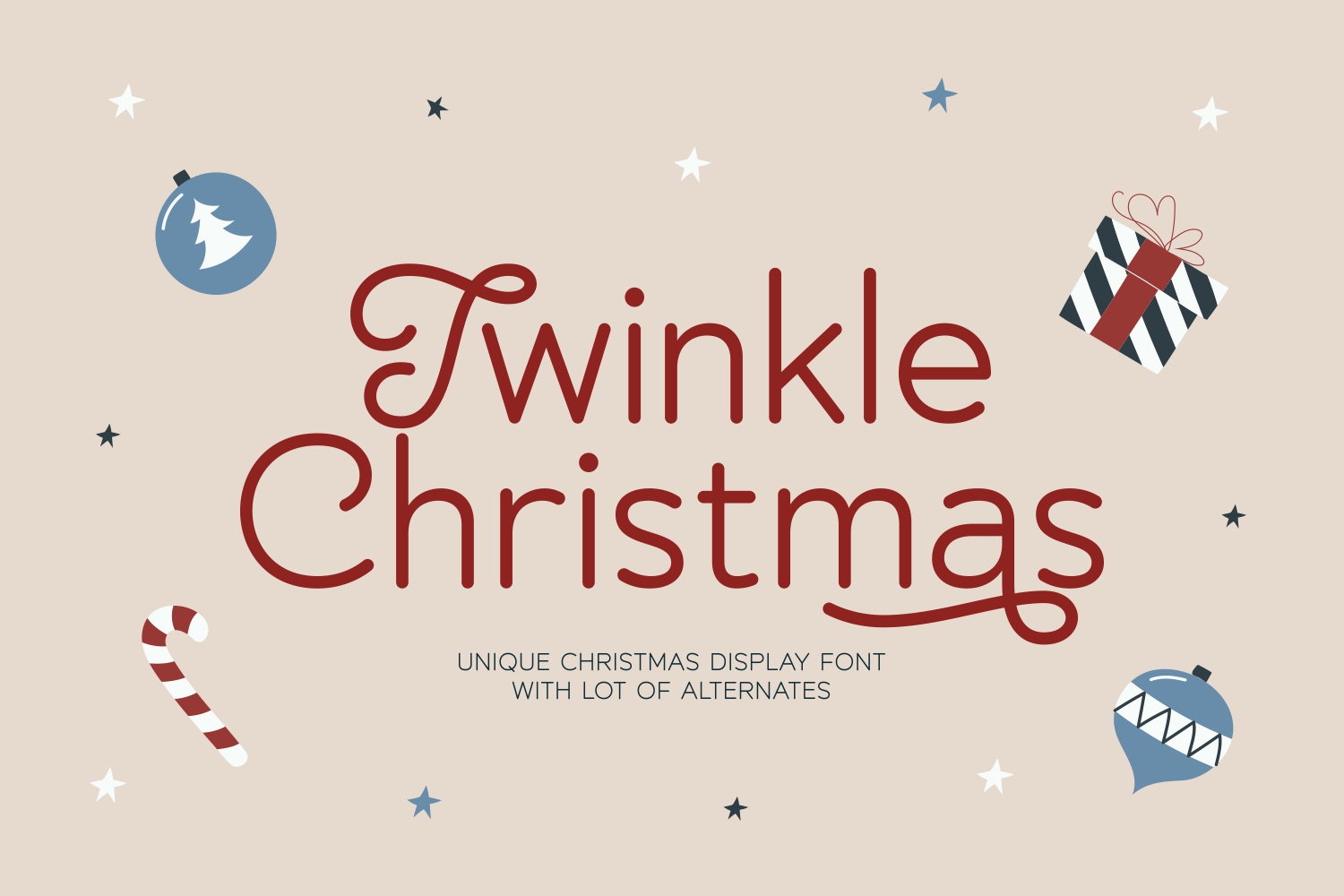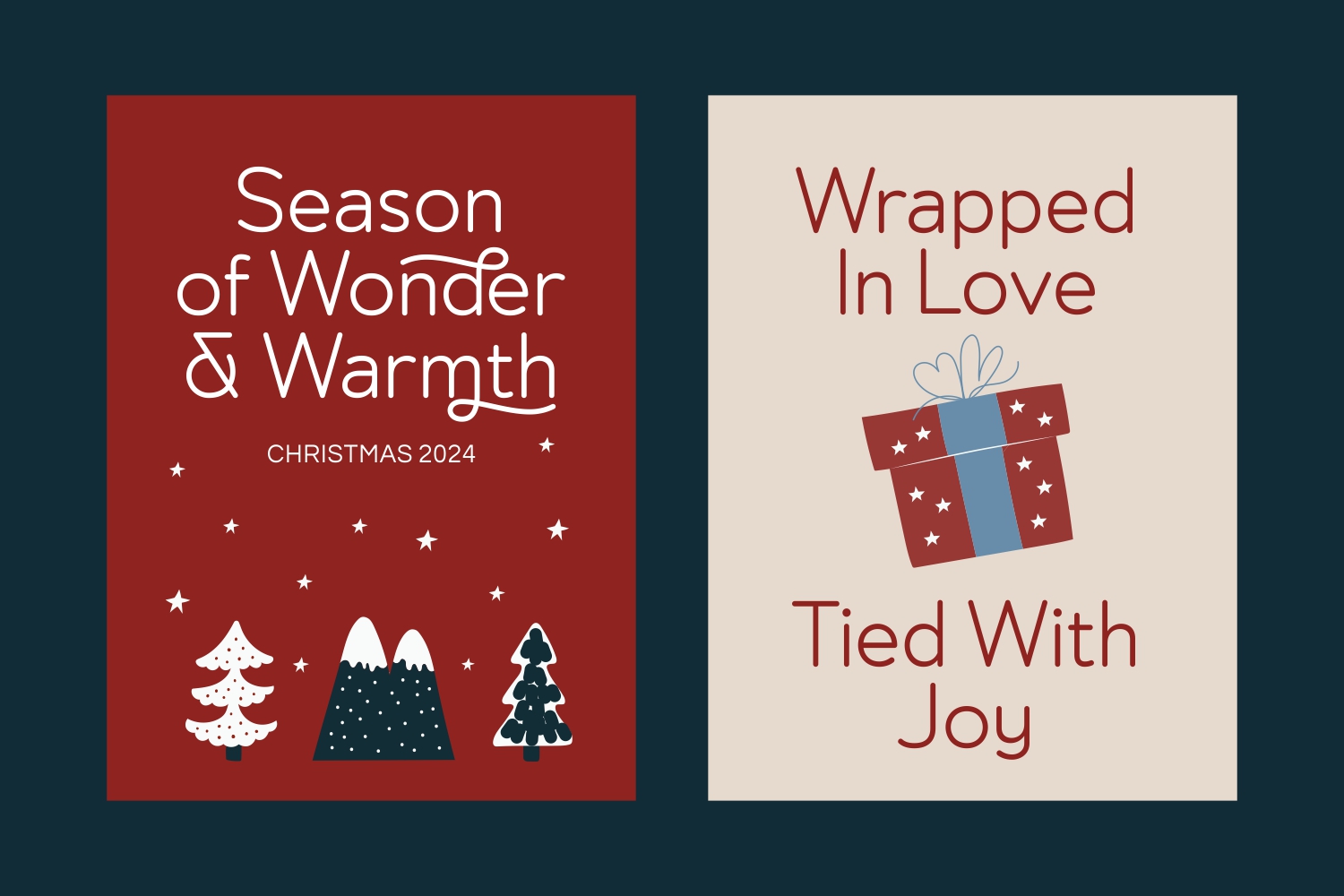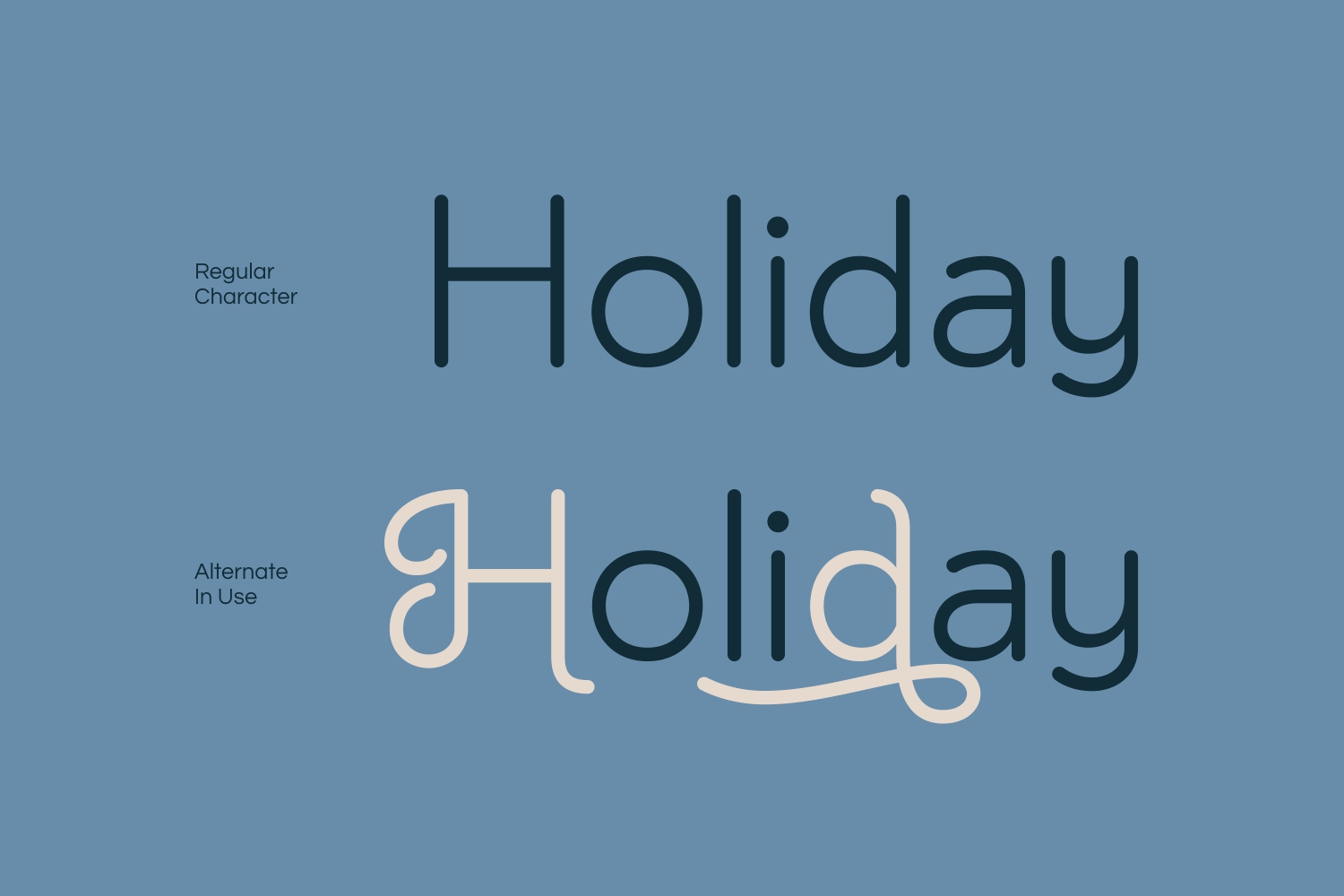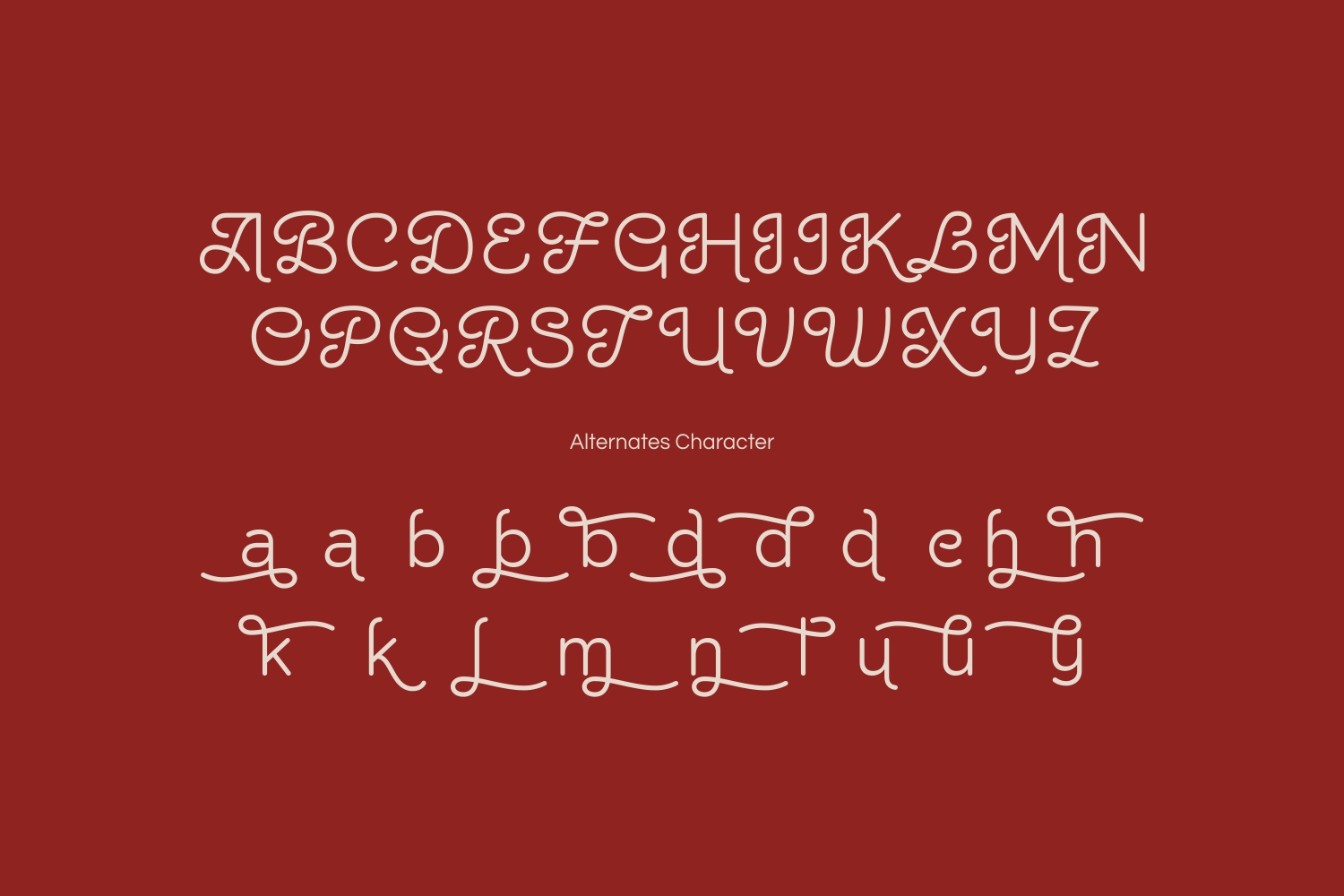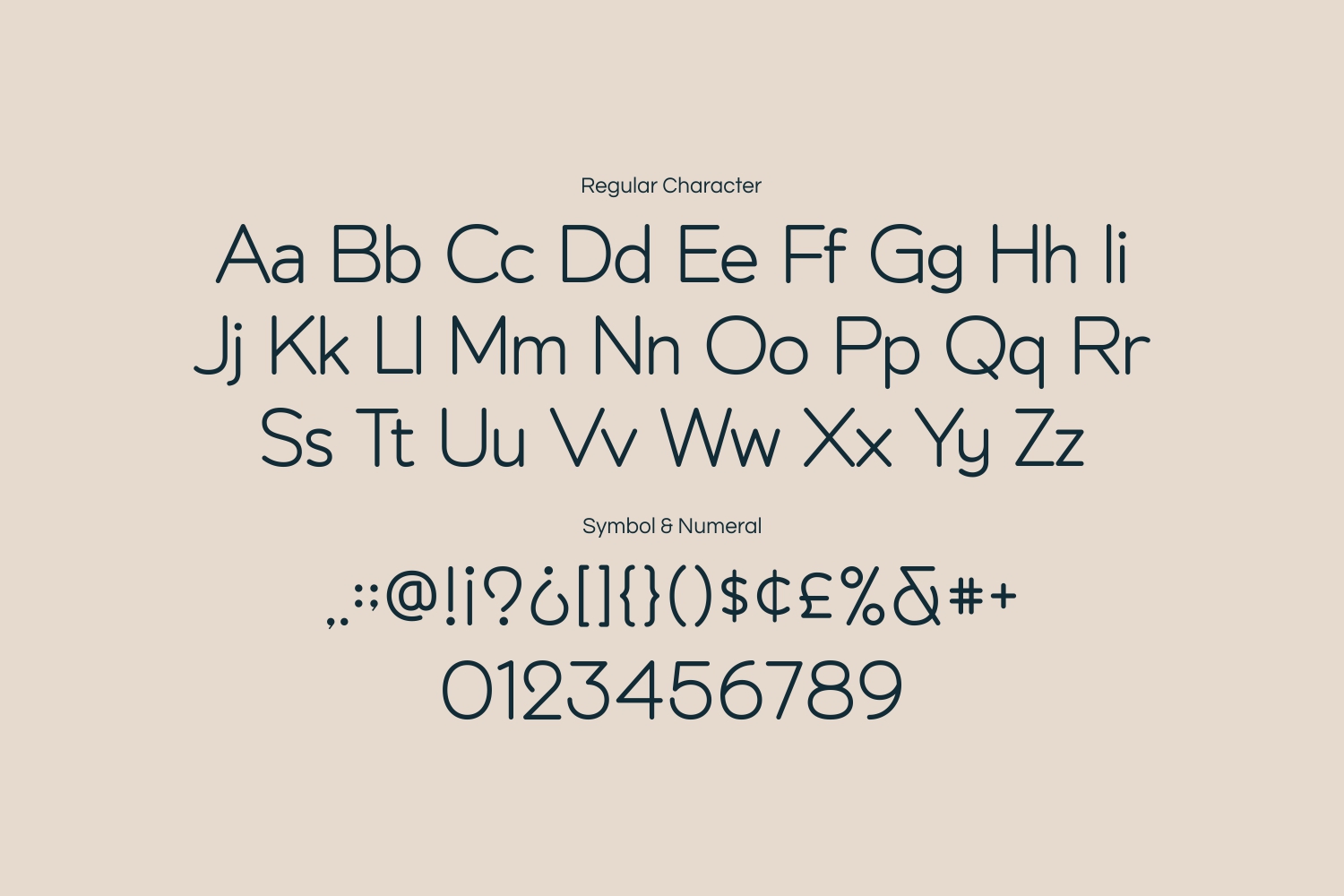
Twinkle Christmas is a charming holiday display font that brings festive magic to your typography. With a soft, rounded structure and a generous set of whimsical alternate characters, this font captures the joyful spirit of Christmas with a modern twist. Its smooth flow and playful swashes make it ideal for holiday cards, gift tags, branding, and seasonal social media content.
Whether you use the regular clean version or decorate your text with the alternates and swirls, Twinkle Christmas adds a delightful warmth to your design. The font supports multilingual characters, punctuation, and numerals, making it a versatile choice for both print and digital projects throughout the holiday season.